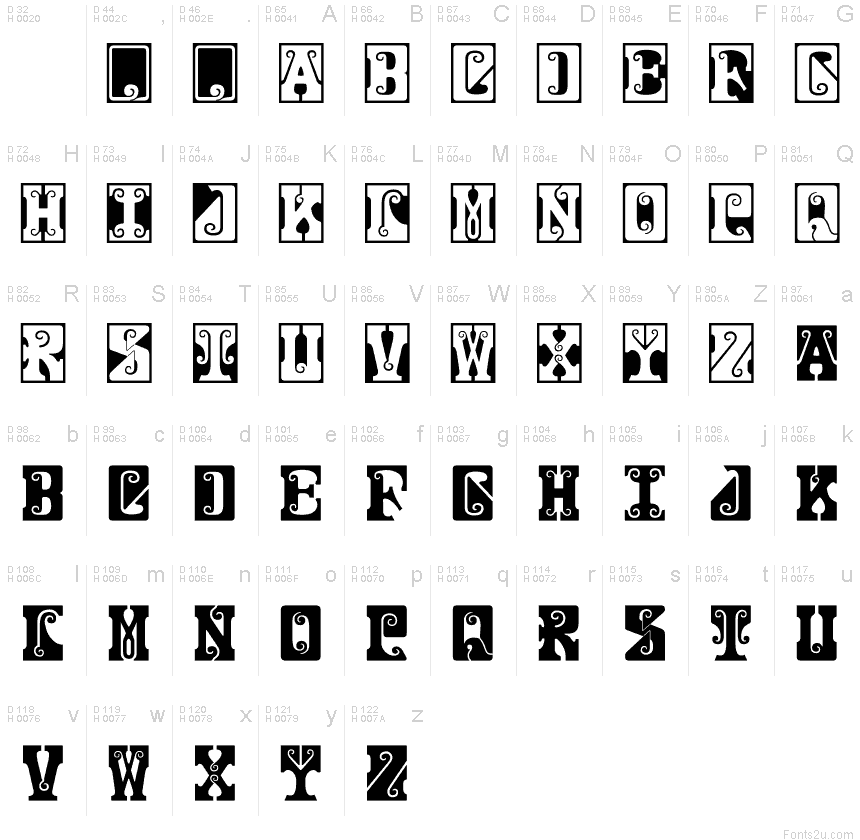
Gosford
Gosford font by Barmee is a free decorative display typeface with a bold, blocky structure sliced open by sharp cuts and inky spirals. Each letter feels like a little poster in itself: heavy black rectangles wrapped around delicate curls that look almost hand-carved. The contrast between those solid slabs and the swirling, vine-like details gives Gosford a theatrical, slightly mysterious presence that jumps off the page even at a glance.
Using Gosford, you get instant drama for projects that need to shout and enchant at the same time-think book covers, event posters, gothic or fantasy branding, packaging, album art, and statement logos. This free font shines when set large, letting those tight curls and angular gaps read clearly. For body text or supporting copy, pair it with a simple sans like Helvetica or Open Sans to keep layouts readable while Gosford handles the showpiece moments.